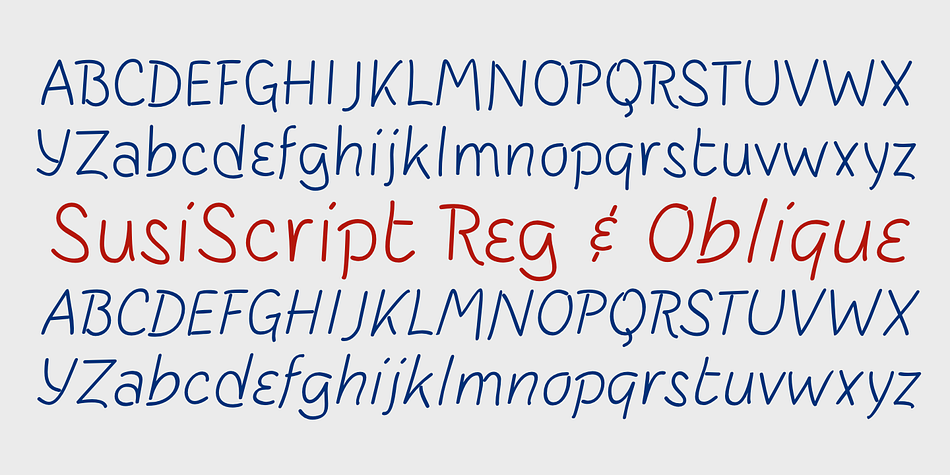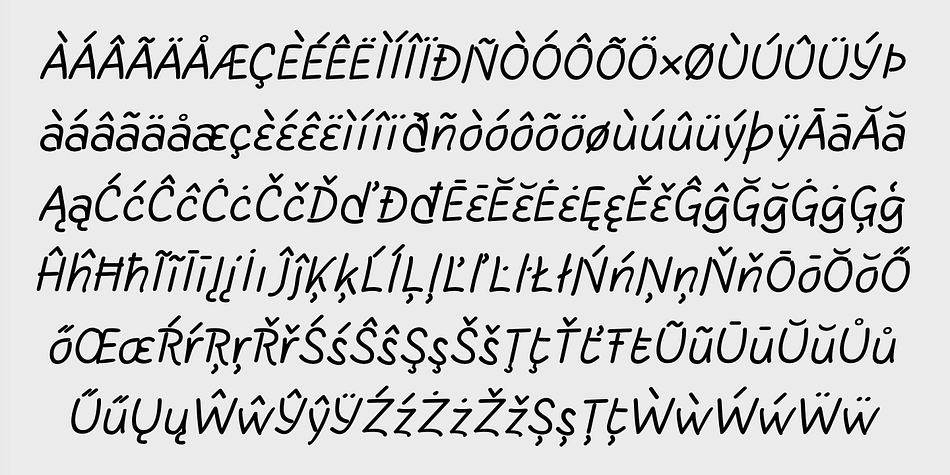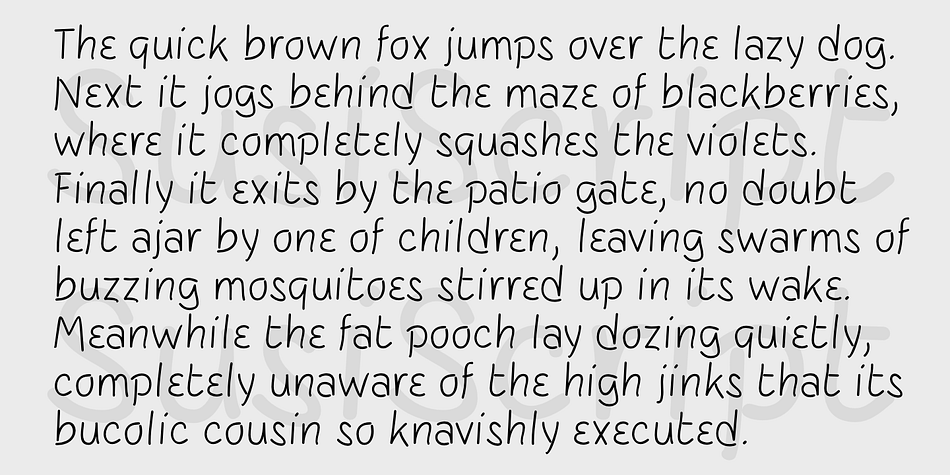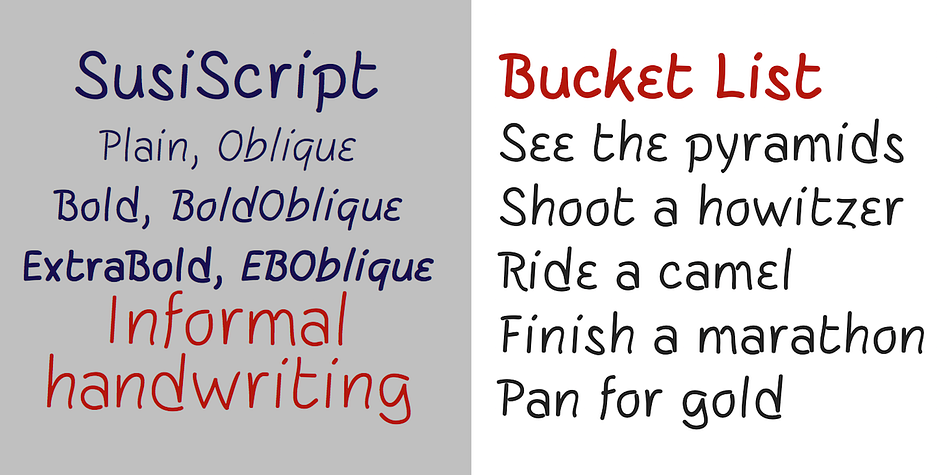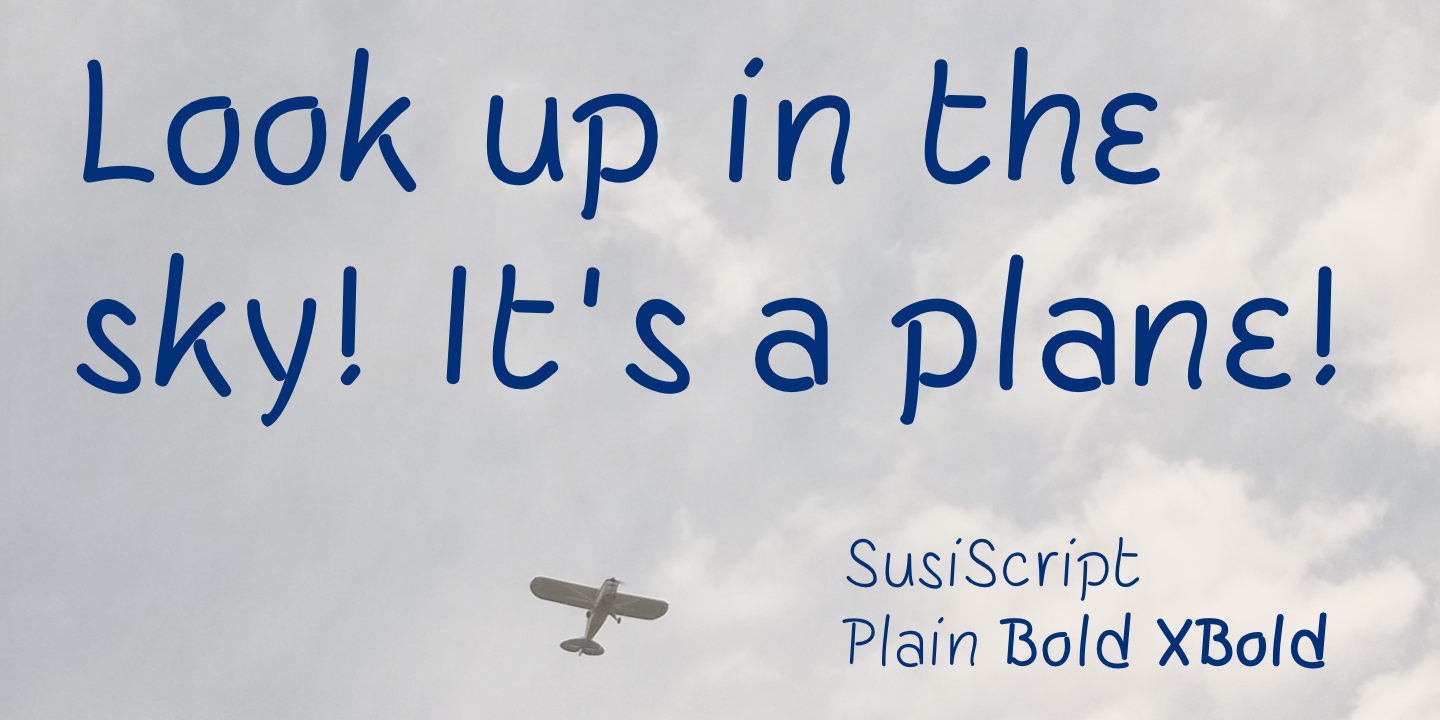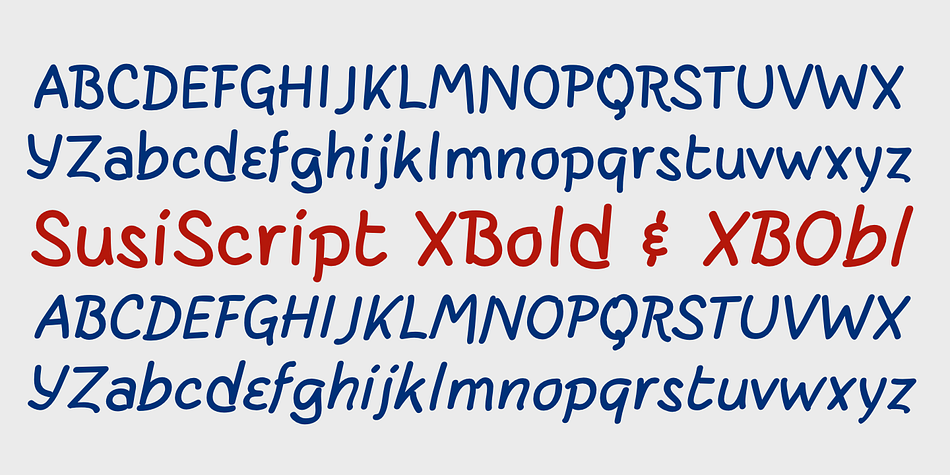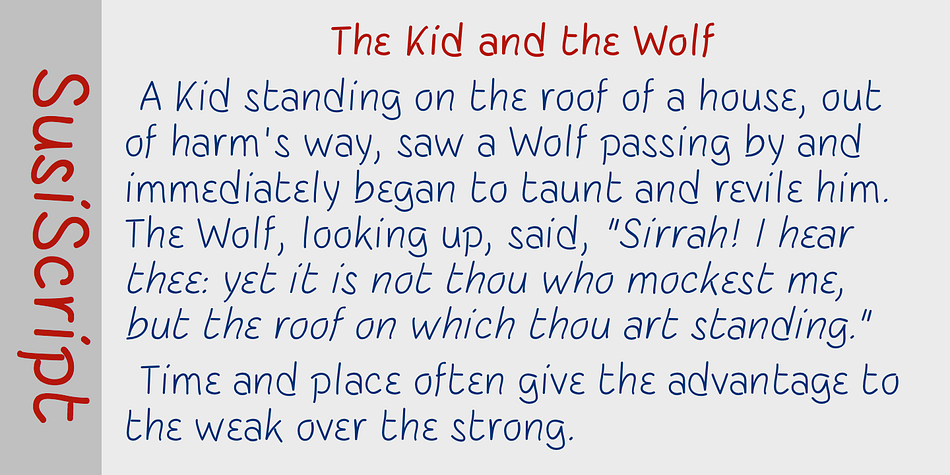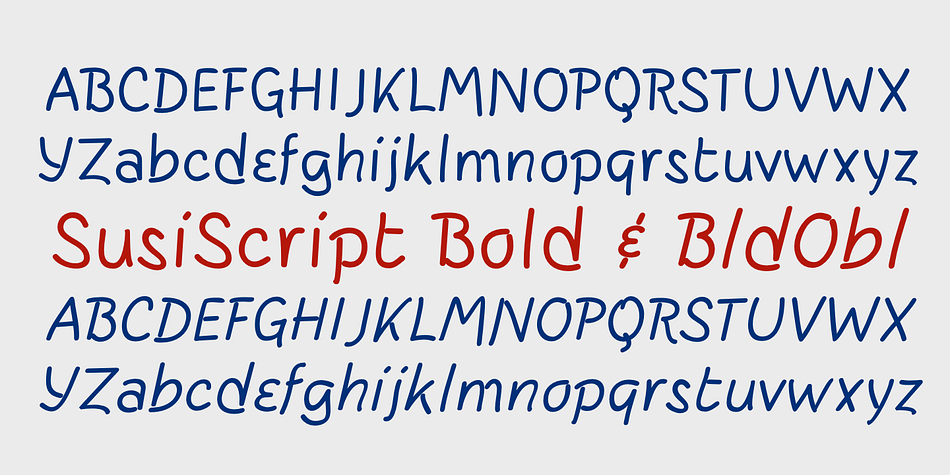
Designed by Robert Schenk, SusiScript is a hand drawn font family. This typeface has six styles and was published by Ingrimayne Type.
SusiScript is an friendly, informal typeface family with three weights, each with an oblique style. The idea for SusiScript came from a girl named Suzi who wrote her “e"s in a peculiar way. The typeface does not replicate her handwriting, which was very hard to read; it merely drew inspiration from several of her letters.
Foundry | Ingrimayne Type |
Designer | Robert Schenk |